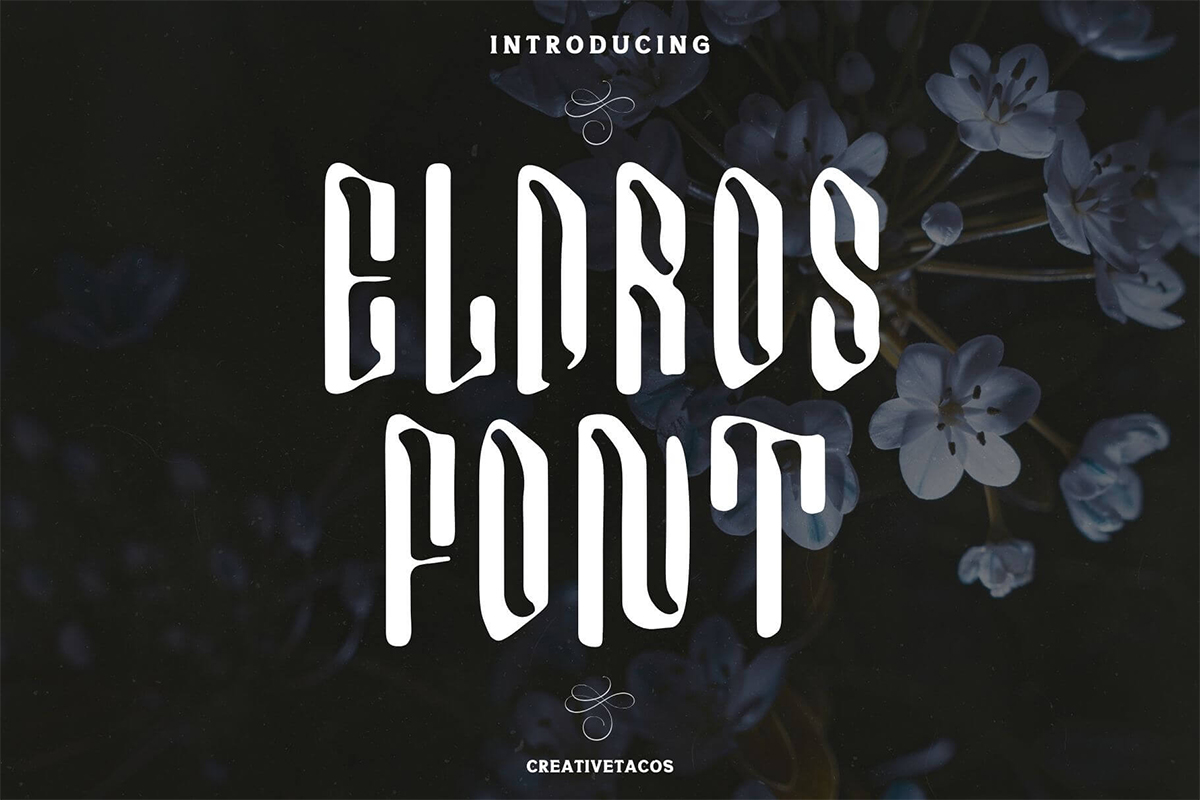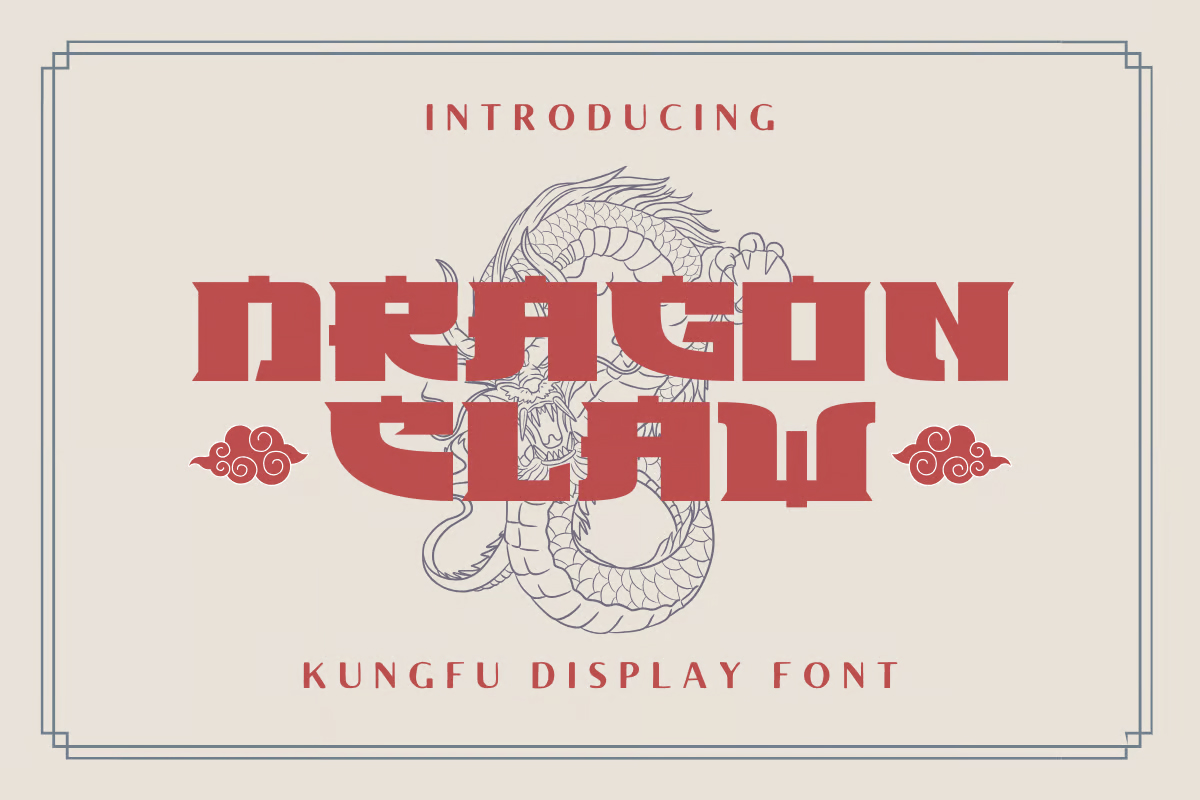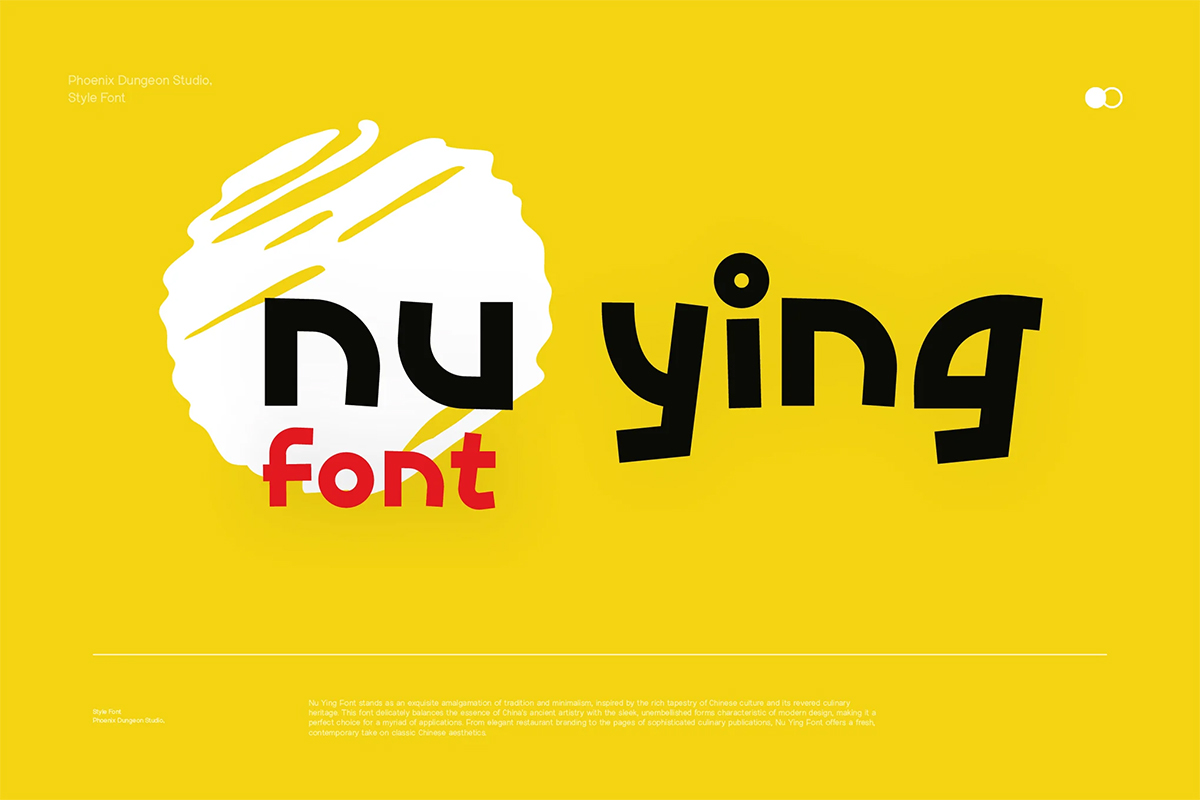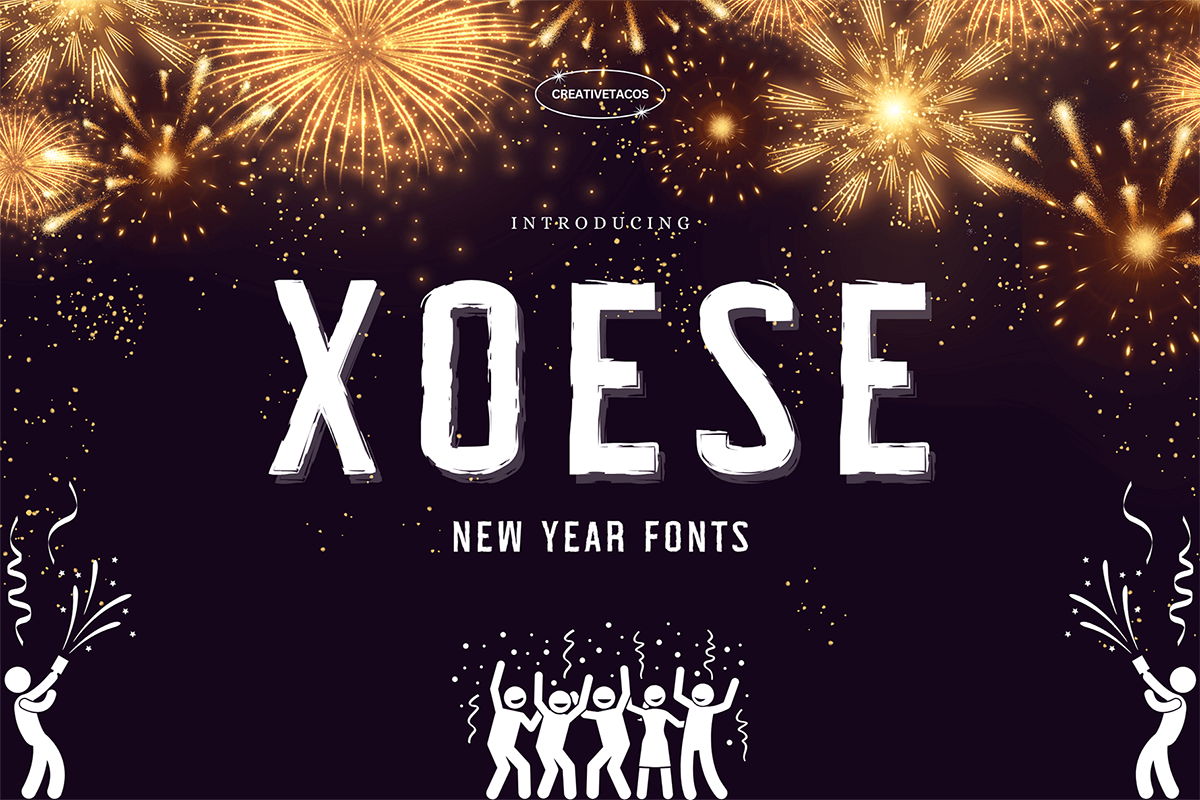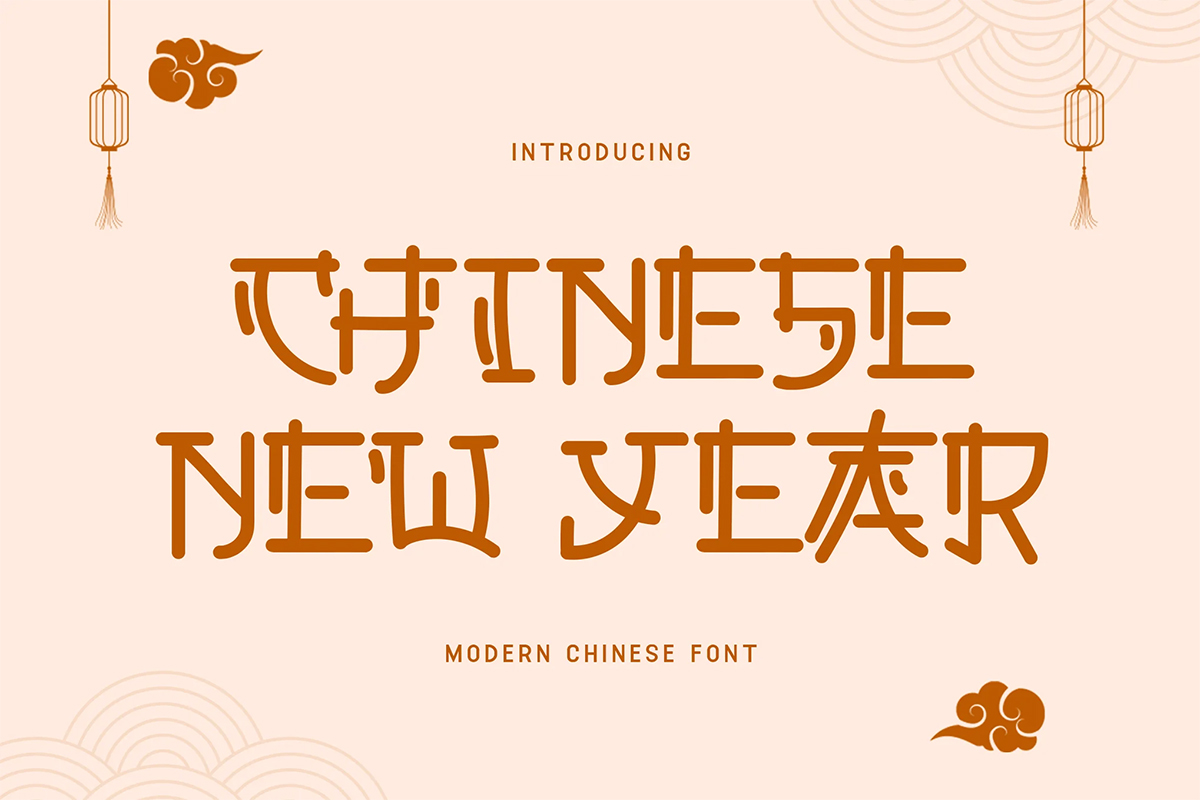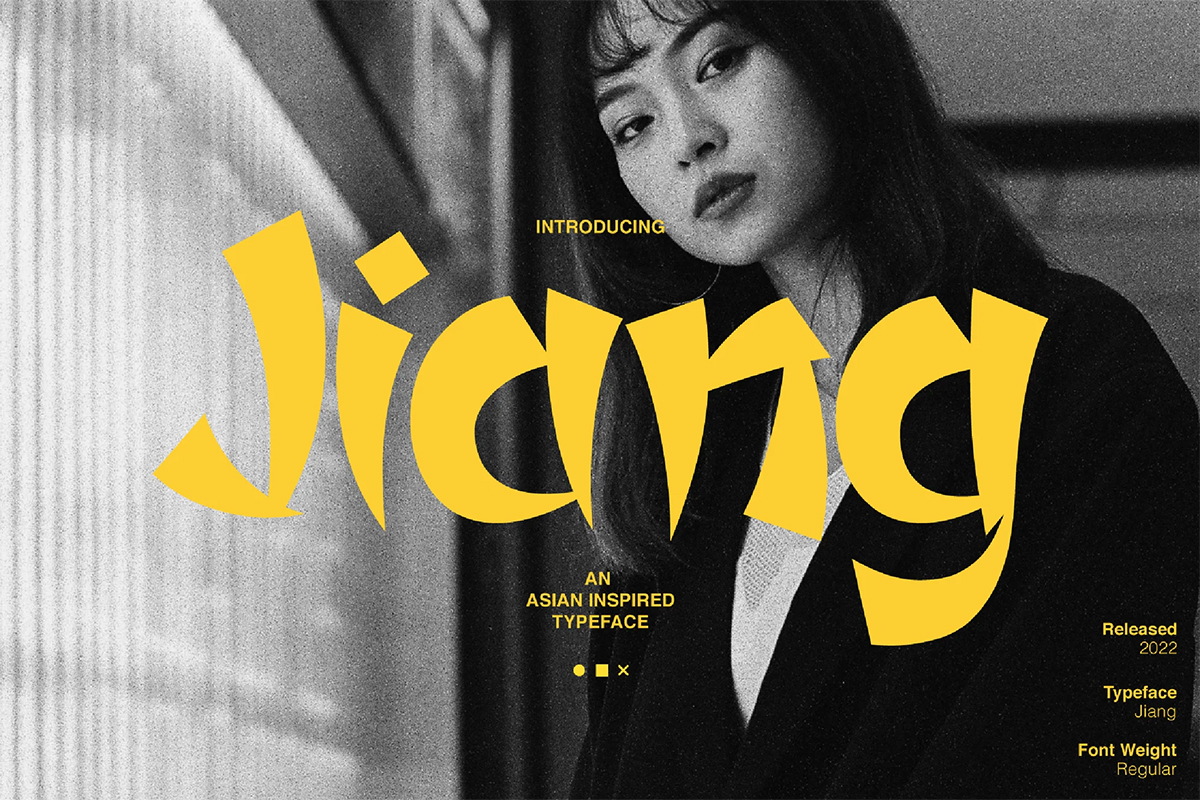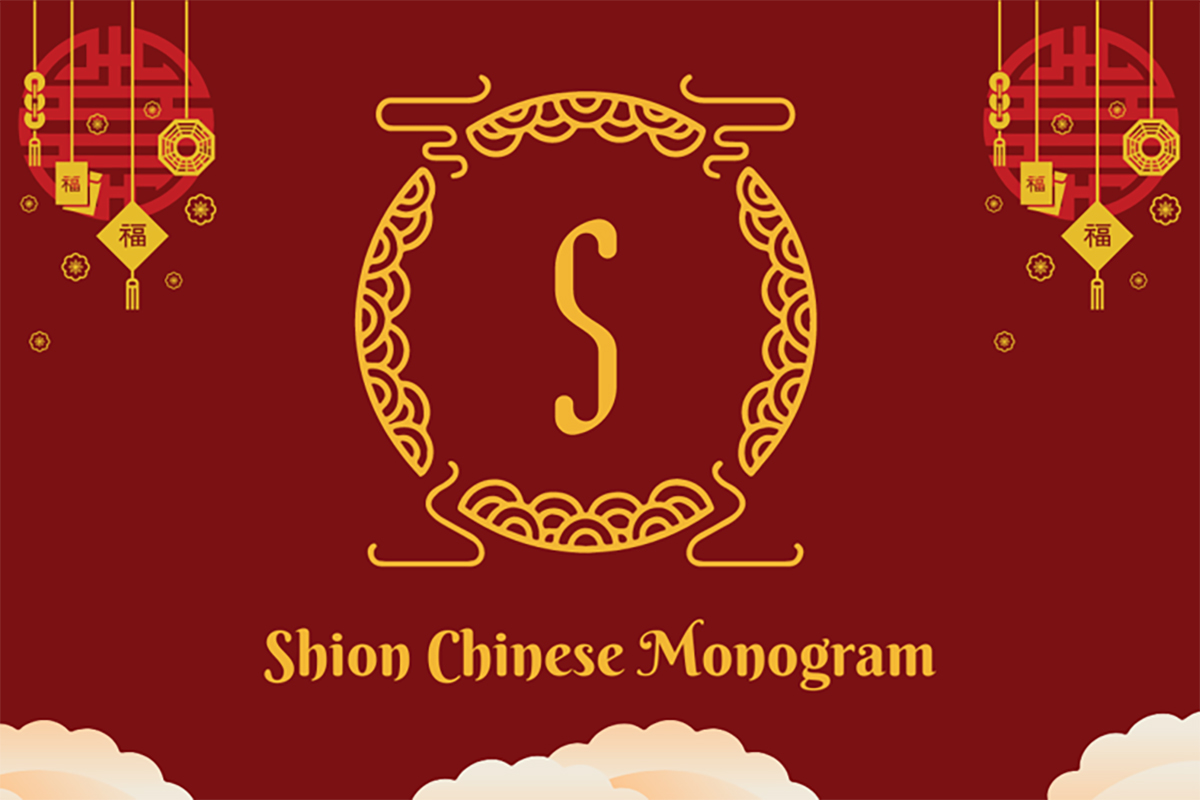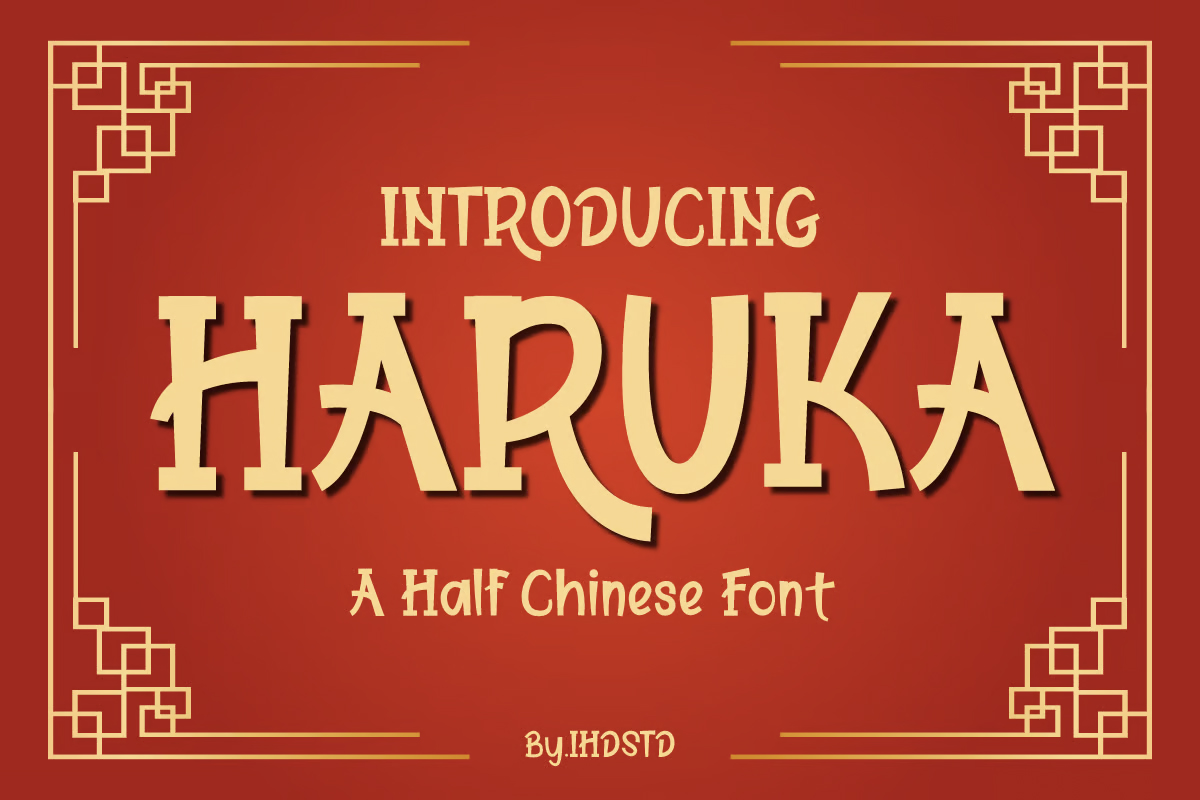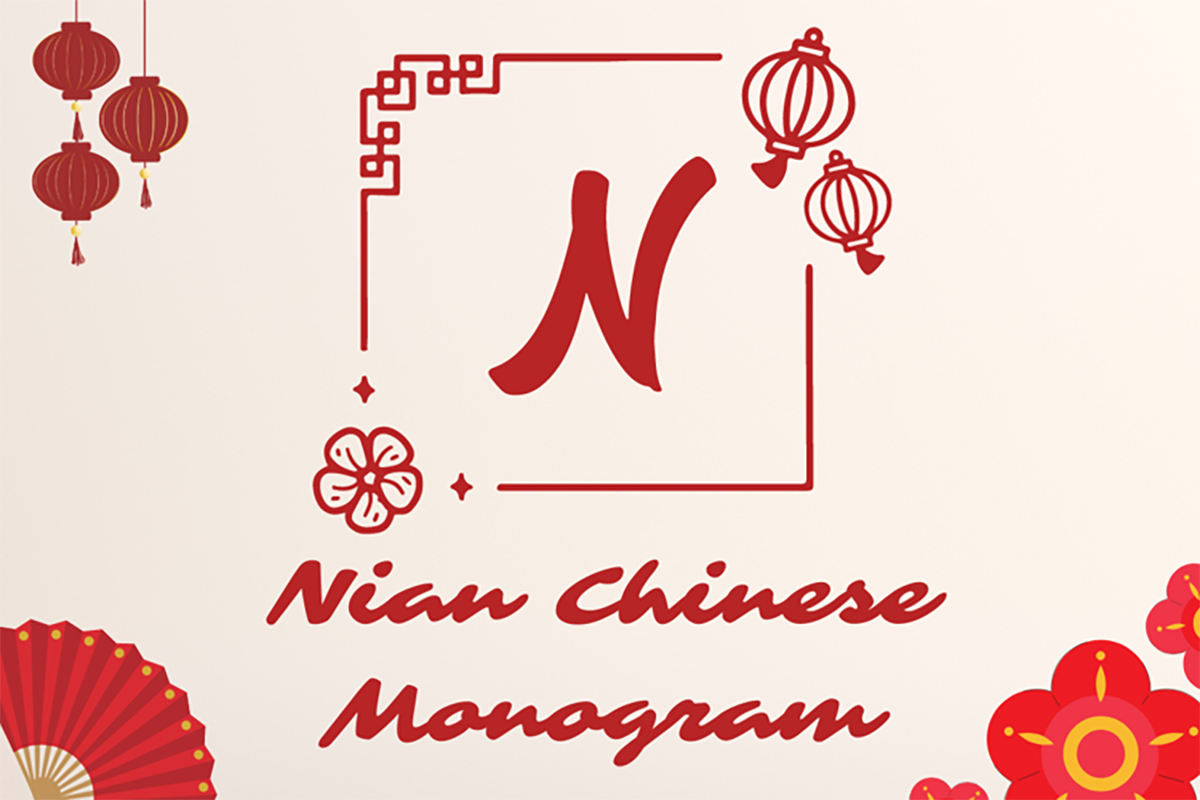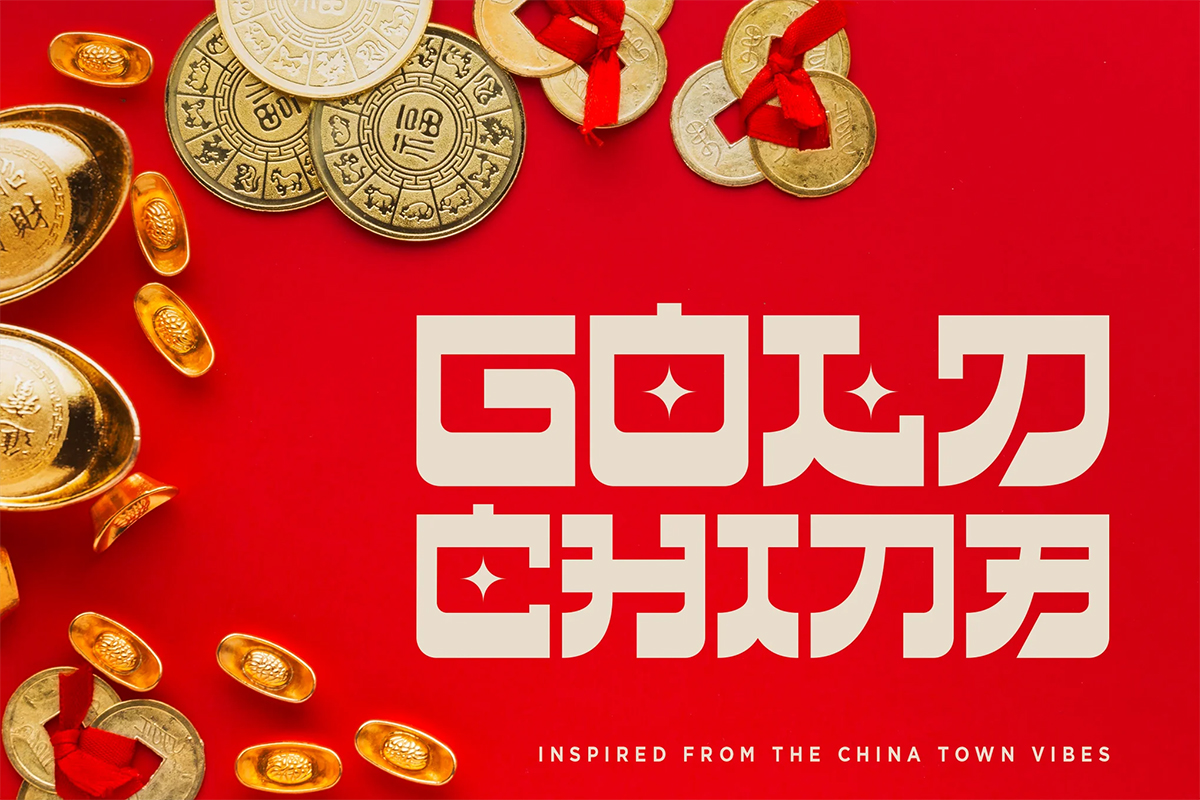
30 Best Chinese Fonts For 2026
Chinese fonts can completely transform the feel of a design. Some are elegant and brush-like, inspired by traditional calligraphy. Others are modern, bold, and built for digital screens. Whether you’re creating content in Chinese or just want to bring in a cultural touch, the right font can make a huge difference.
This list brings together 30 of the best Chinese fonts for 2026 — a mix of traditional, simplified, and display styles that work beautifully across both modern and classic designs.
Where to Use Chinese Fonts
• Branding & Packaging
Perfect for food, tea, skincare, or lifestyle products that want to highlight heritage or cultural roots.
• Posters & Flyers
Whether it’s for Lunar New Year, cultural events, or exhibitions, Chinese fonts bring authenticity and style.
• Web & App Design
Use clean and readable fonts for blogs, e-commerce, or mobile UI where Chinese text needs to shine.
• YouTube Thumbnails & Social Media
Add eye-catching titles that feel connected to Chinese aesthetics, whether traditional or trendy.
• Print & Merchandise
Great for T-shirts, menus, prints, or stationery that embrace an East Asian design feel.
The 15 Best Chinese Fonts for 2025 Designs
1. Xoese Happy New Year Font
This font exudes celebration and joy, making it the perfect choice for New Year greetings and festive decorations. Its bold and playful strokes immediately grab attention, setting a celebratory mood.
Uses: Party invitations, banners, or seasonal campaigns.
2. Eldros Font
Blending elegance with cultural influences, Eldros is an excellent choice for professional projects. Its thin, clean strokes and modern aesthetic make it versatile across multiple applications.
Uses: Minimalist posters, upscale branding, or editorial layouts.
3. Oriental – Authentic Chinese Typeface
For projects that demand authenticity, Oriental delivers with its traditional brushstroke-inspired design. It’s ideal for evoking cultural richness while maintaining readability.
Uses: Restaurant menus, cultural event flyers, or product packaging.
4. Dragon Claw – Kungfu Display Font
This font brings energy and dynamism to your designs. Its rugged edges and claw-like strokes make it perfect for action-packed visuals.
Uses: Martial arts posters, gaming covers, or sports-related campaigns.
5. Shufen – a Chinese Font
Shufen’s minimalist yet traditional design ensures it fits seamlessly into corporate and creative projects. Its clean appearance conveys professionalism.
Uses: Logos, corporate branding, or web designs.
6. The Chinese Font
A classic font for projects requiring a timeless look. Its strong and defined lines make it both visually striking and legible.
Uses: Advertising, promotional materials, or product labels.
7. Gong Xi Fa Cai – Modern Chinese New Year Font
Dynamic and festive, this font embodies the spirit of celebration. It pairs bold lines with a modern flair, perfect for seasonal campaigns.
Uses: Holiday banners, greeting cards, or event flyers.
8. Chinesse World – Chinese Decorative Font
This decorative font stands out with its intricate embellishments, making it perfect for designs with a rich visual focus.
Uses: Invitations, advertisements, or decorative headings.
9. Chinese Boxs – Font
Sleek and geometric, Chinese Boxs is ideal for modern projects. Its boxy, structured appearance gives it a unique and contemporary vibe.
Uses: Tech blogs, digital platforms, or modern branding.
10. Chinese Monoline – Chinese Style Monoline
A simple yet elegant font, Chinese Monoline brings sophistication with its consistent, thin strokes. It’s ideal for minimalist designs.
Uses: Invitations, fashion branding, or modern web layouts.
11. Chinese Shangai – Asian Font
Transport your audience to the golden age of 1920s Shanghai with this retro-inspired typeface. It combines vintage charm with modern usability.
Uses: Retro posters, fashion campaigns, or movie titles.
12. Dragon Wave – Modern Chinese Brush Font
If your project demands artistic flair, Dragon Wave offers fluid, brush-inspired strokes that create a sense of motion and creativity.
Uses: Contemporary art displays, branding, or digital ads.
13. Zapanese Font
A fusion of Chinese and Japanese styles, this font delivers cultural versatility with its bold yet intricate strokes.
Uses: Cross-cultural branding, travel guides, or unique headings.
14. Jiang – Asian Inspired Display
Striking and bold, Jiang is an eye-catching display font. Its distinct design makes it perfect for headings and impactful visuals.
Uses: Large-scale posters, event branding, or advertisements.
Uses: Luxury branding, stationery, or elegant product labels.
FAQs About Chinese Fonts for 2025
What makes a good Chinese font for design?
A good Chinese font offers a balance of cultural authenticity, legibility, and creative flair.
Where can I use Chinese-inspired fonts?
These fonts are versatile for branding, event posters, restaurant menus, and digital projects.
Can I use these fonts in non-Chinese designs?
Absolutely. Their versatility allows them to fit into global design themes.